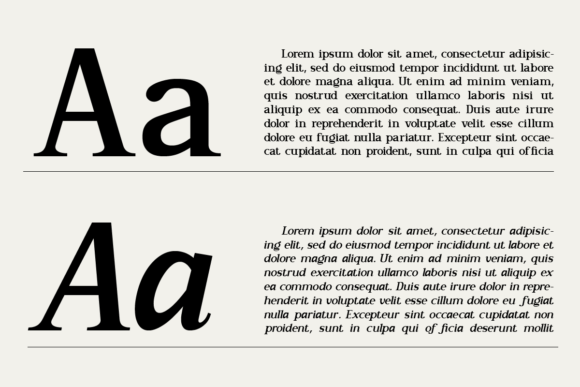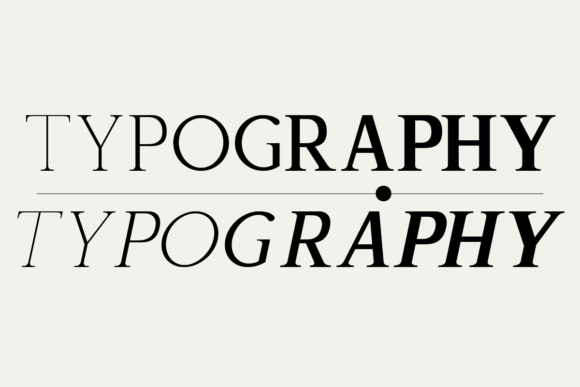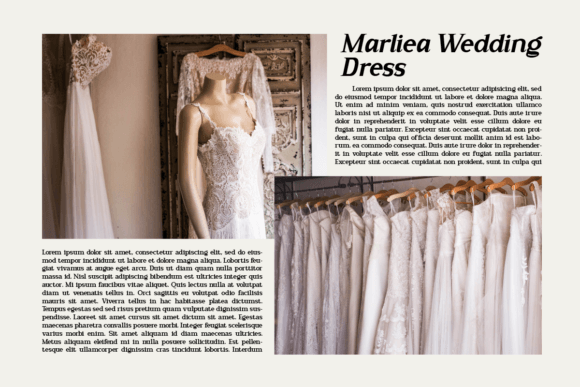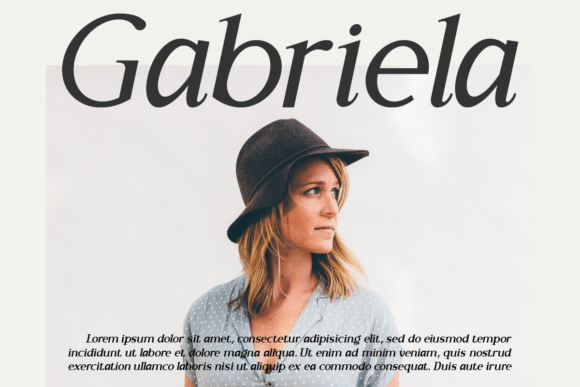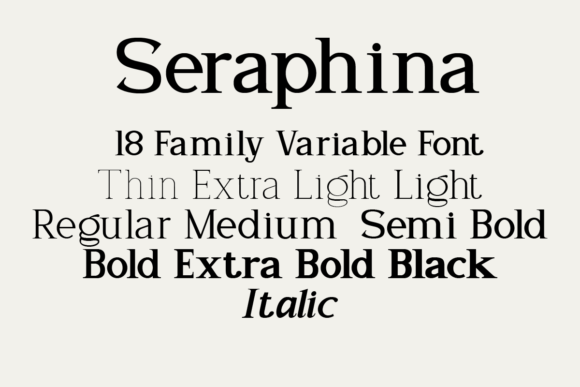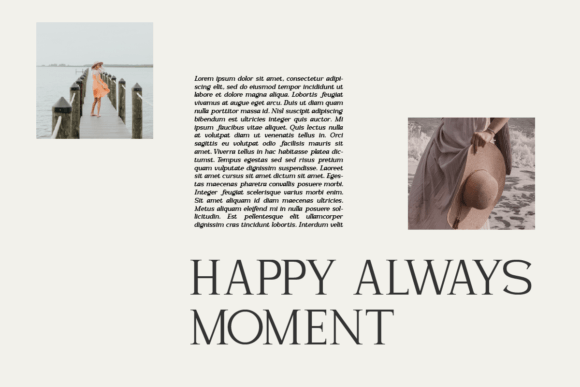
Introduction to Seraphina Font
Seraphina is a variable serif font that boasts beauty across 18 distinct styles, ranging from the delicate “Thin” to the boldest “Black”.
Each style offers italic capabilities, enriching the spectrum of your design possibilities The elegance encapsulated within each letter creates a captivating impression, making it ideal for branding seeking prominence and fashion styles aiming to convey an elegant and exclusive message.